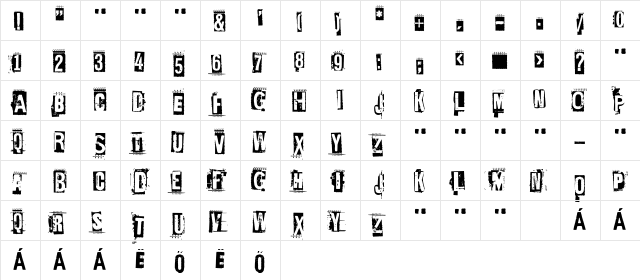
Ed Gein Regular
| Foundry | Bumbayo Font Fabrik |
| Designer | Bumbayo 2008 |
Design Context for Ed Gein Typeface
Ed Gein is a composed and adaptable typeface that performs quietly and consistently across a wide range of design contexts.